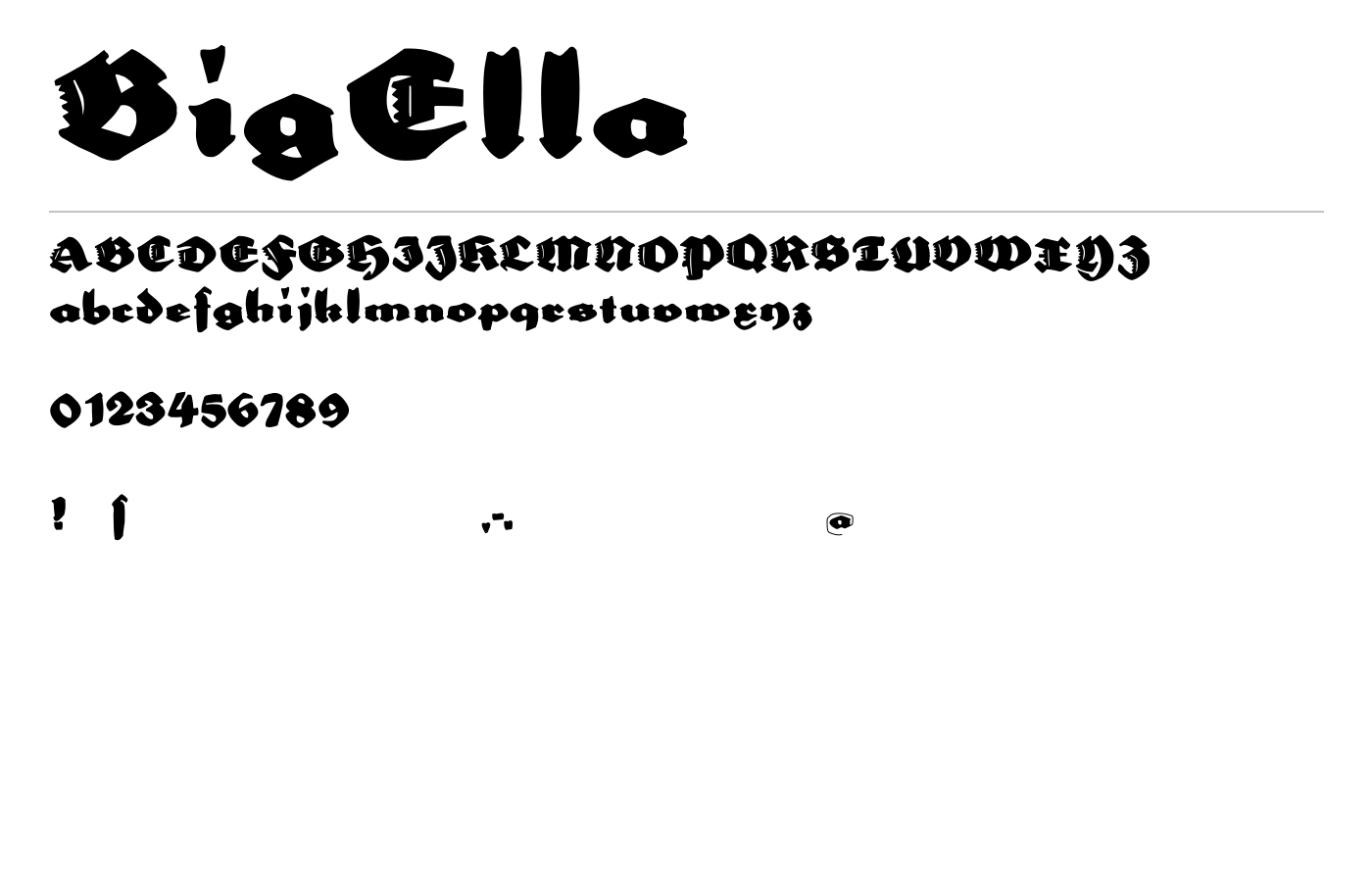
BigElla is a bold, blackletter-style serif font with a strong gothic character, featuring sharp, angular strokes and a heavy weight that commands attention. Its decorative and intricate letterforms evoke a vintage, medieval feel, making it ideal for display use in logos, posters, and branding projects that seek a dramatic, historic, or edgy vibe. This font works best when used sparingly for headlines or standout text rather than body copy, emphasizing its unique and powerful personality.